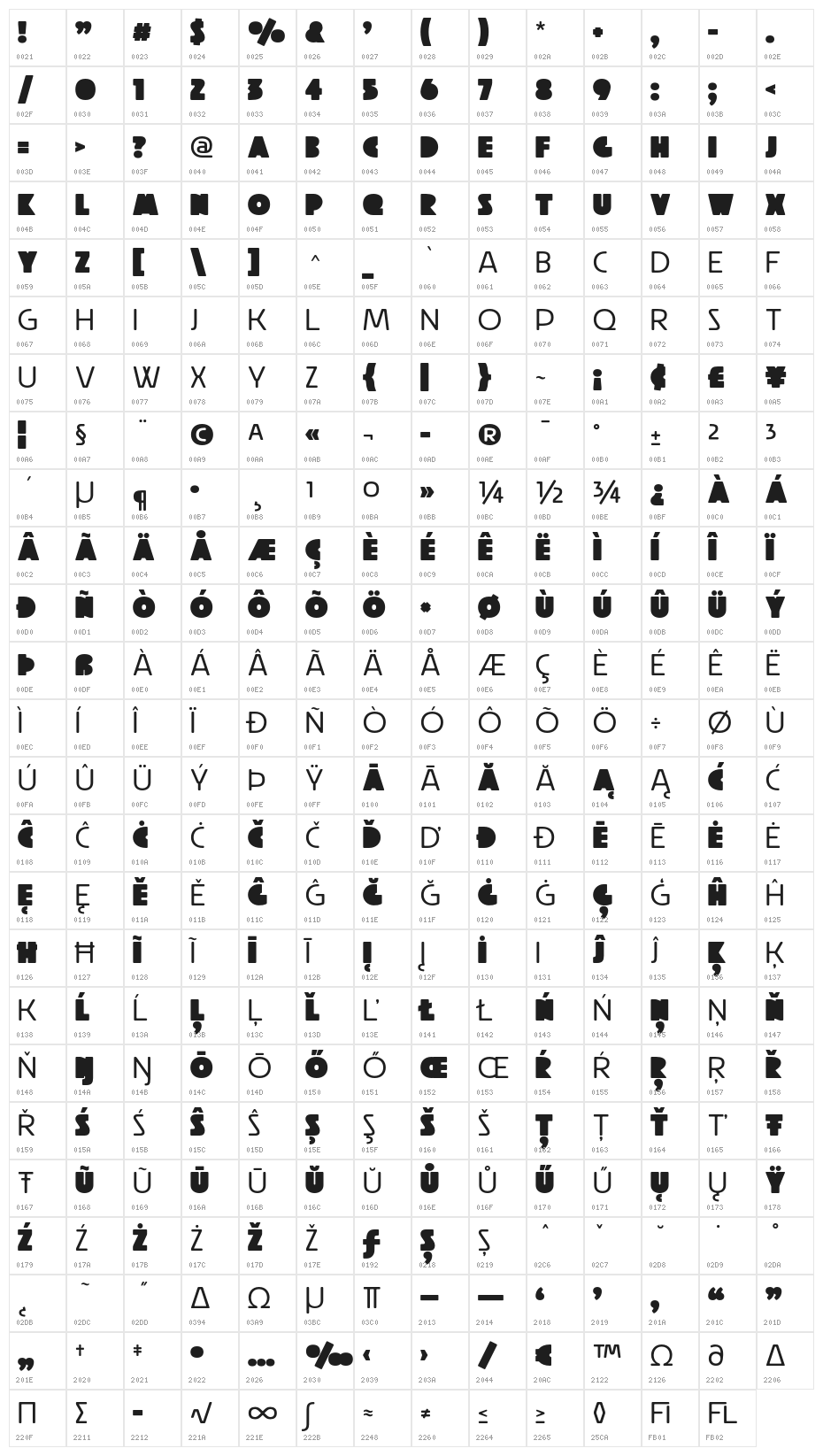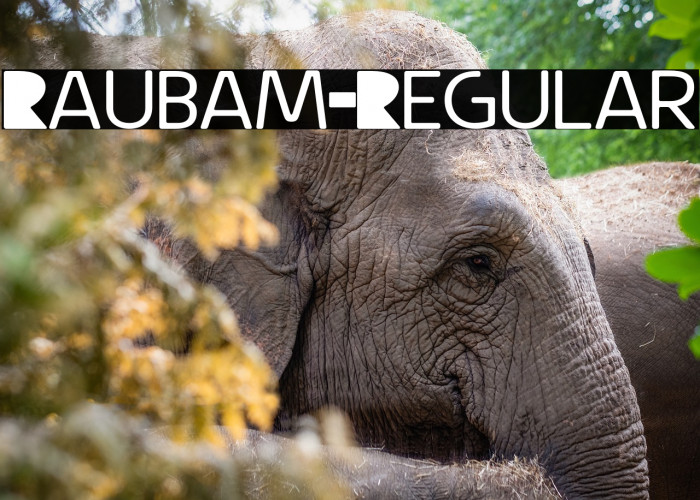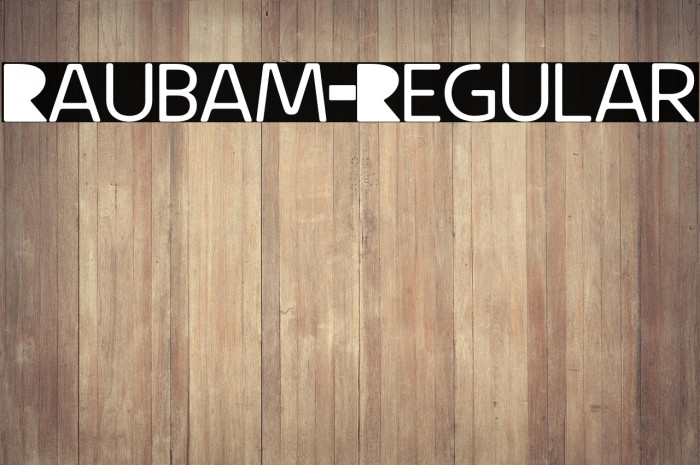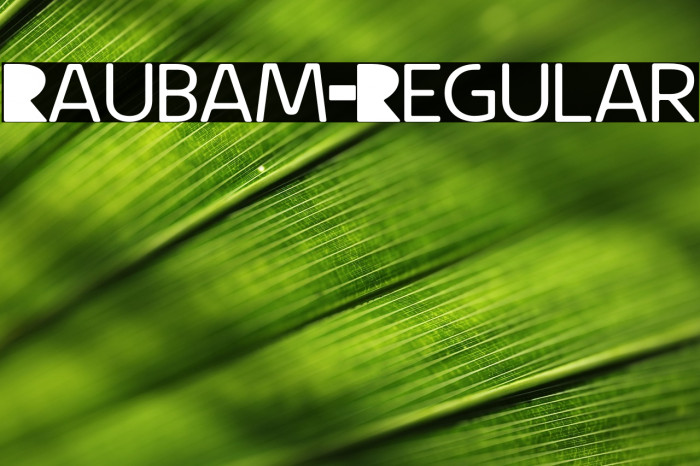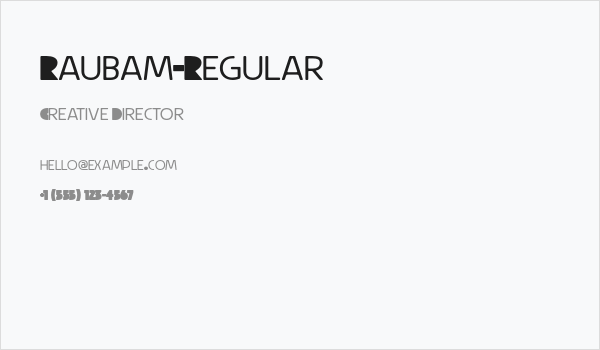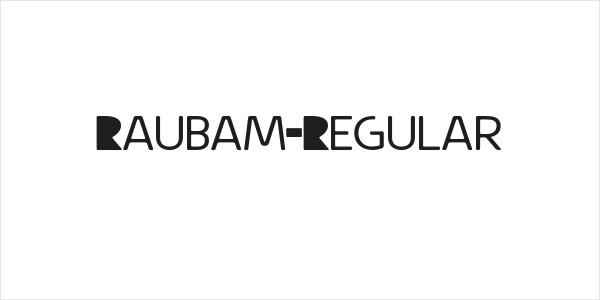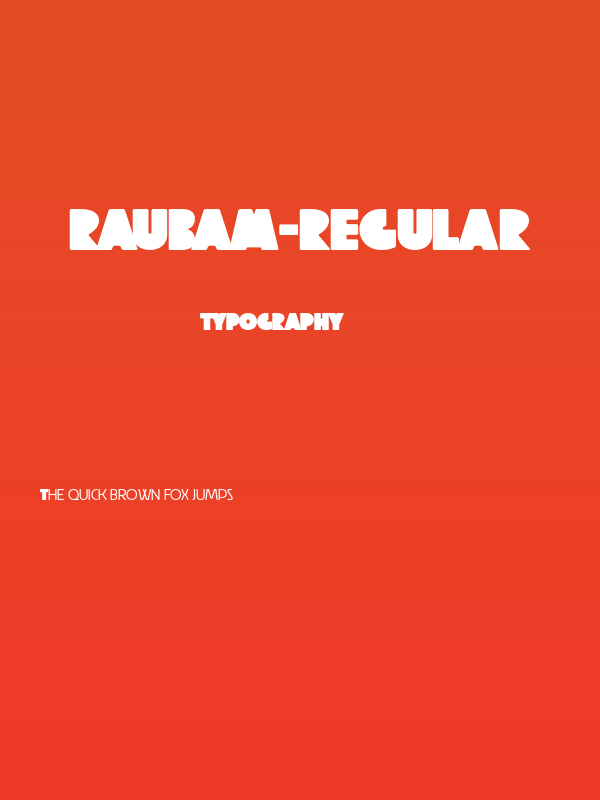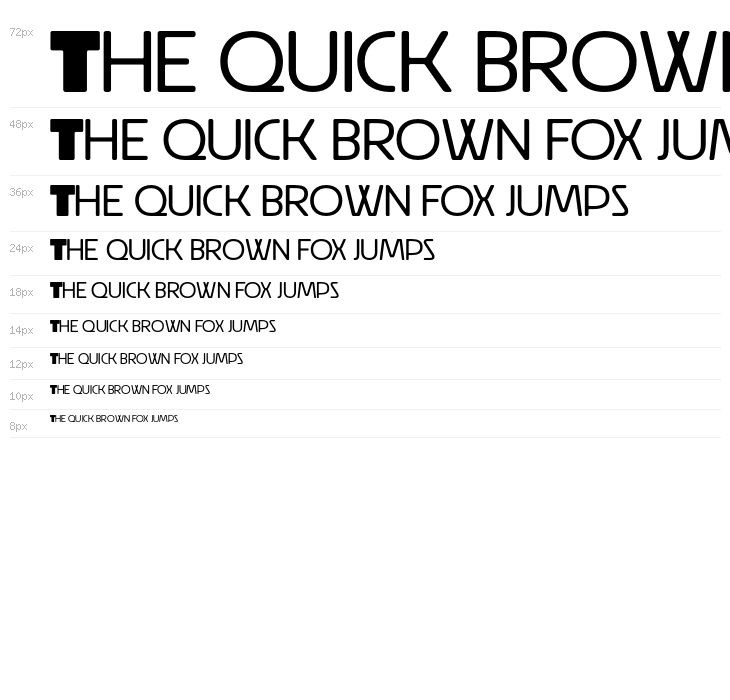
Raubam-Regular Font
Raubam-Regular Description
This font features a bold and striking design with a strong geometric influence. The uppercase letters are characterized by thick, block-like shapes that create a powerful visual impact. The lowercase letters maintain a consistent style, offering a modern and cohesive look. The numbers are equally bold, ensuring they stand out in any design. Special characters are designed with the same boldness, making them suitable for attention-grabbing headlines or logos. The overall style is modern and decorative, perfect for projects that require a strong visual presence.